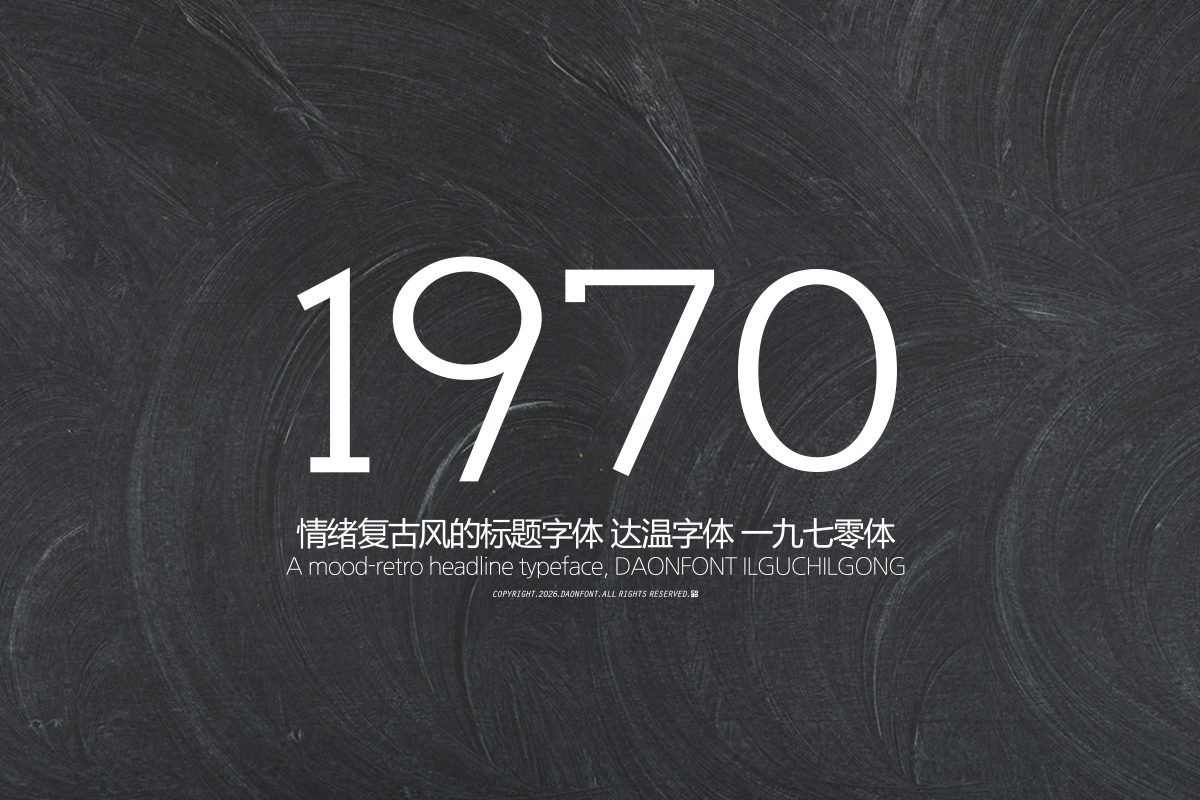
DAON ILGUCHILGONG(M)
'ILGUCHILGONG' font is a copy typeface that offers a modern reinterpretation of the texture and retro sensibility of a typewriter. Capturing both the regular rhythm and subtle analog vibe of mechanical typing, it adds atmosphere even to simple text.